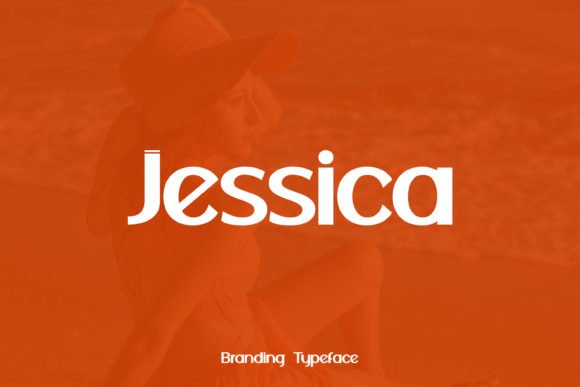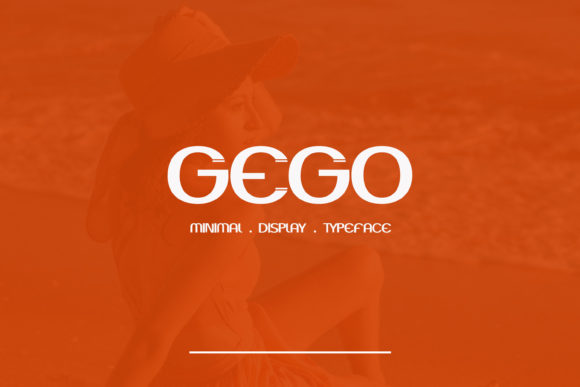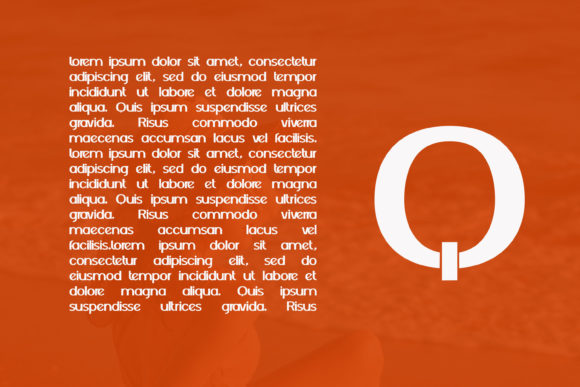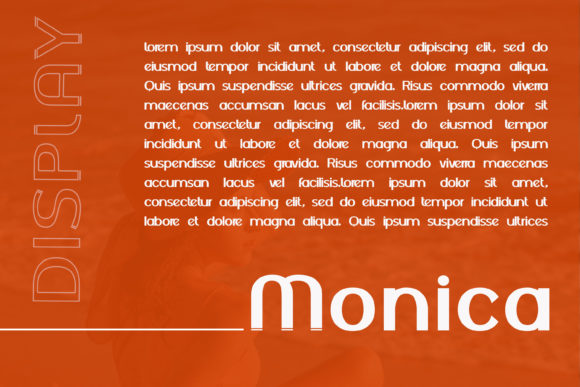
Unlock the Cool Factor in Your Designs
Have you ever stared at a blank canvas, trying to bring your creative vision to life? The blank page can be intimidating, but it’s also an opportunity to let your imagination run wild. That’s exactly what happened when we created Jessica Font – a clean and modern display font designed to add a touch of sophistication to any project.
Whether you’re building a website, crafting a logo, or simply looking for a font to elevate your design, Jessica Font is the perfect addition to your toolkit. Its minimalist and techno-inspired style makes it a valuable asset for designers looking to infuse their work with a smart, cool touch.
With Jessica Font, the possibilities are endless. From futuristic interfaces to sleek branding, this versatile font is sure to help you create something truly remarkable.
Jessica Font Key Features
- Font Family: Jessica Font is a sans-serif font family.
- Resolution: Designed for use at high resolutions, ideal for digital displays and print media.
- Font Size: Available in various font sizes, ranging from 8 to 72 points.
- Unique Characteristics: Jessica Font features a clean and modern design, with a unique blend of geometric and organic elements.
Jessica Font Review
I recently had the chance to work with the Jessica Font, and I must say it’s a solid addition to any designer’s toolkit. ✨ The font is highly legible, even at smaller sizes, making it perfect for body text and captions. The x-height is well-balanced, and the letterforms are clean and modern.
Another standout feature of the Jessica Font is its versatility. ✨ It’s available in a range of weights and styles, from light to bold, and even has a few unique variations like italic and condensed. This makes it easy to use in a variety of contexts, from headings and titles to body text and footnotes.
- ⚠️ The font may not be the best choice for display headings, as it can feel a bit too subtle and understated.
- ⚠️ Some users may find the font’s x-height to be slightly too tall, which can affect the overall line height and readability.
Overall, I’m impressed with the Jessica Font. It’s a reliable, high-quality choice for any design project, and its versatility makes it a great addition to any designer’s toolkit. While it may have a few limitations, these are easily outweighed by its many strengths. I’d definitely recommend giving it a try.
Tips for Getting the Most Out of Jessica Font
For the best results, use Jessica Font in headings and titles to create a clear hierarchy of information. Experiment with different font sizes and styles to add visual interest to your design.
Jessica Font is commonly used in creative projects, such as graphic design, branding, and advertising. It is also suitable for use in digital products, such as websites and mobile apps.
Yes, Jessica Font is available in several weights, including Regular, Bold, and Italic. The font also has a condensed version, which is ideal for use in narrow columns or small spaces.